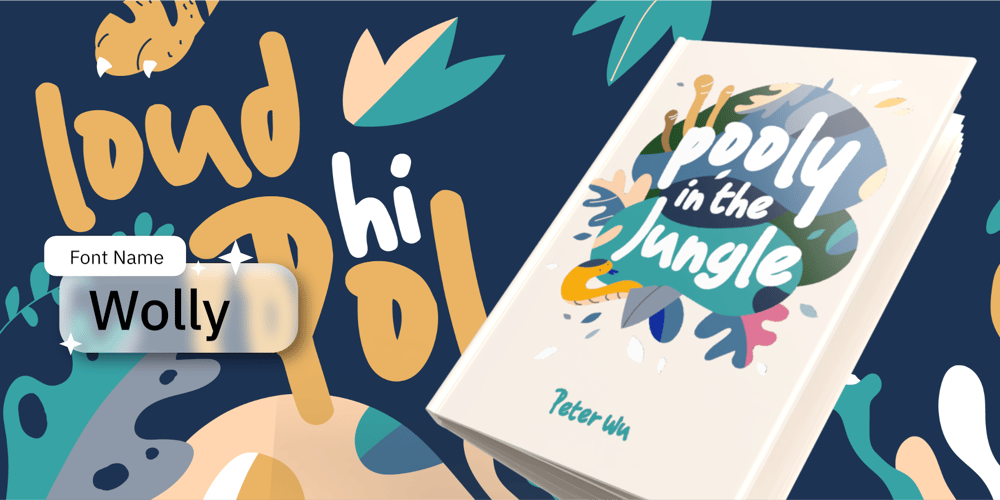
Wolly
Wolly font
Wolly Font Family was designed by Wahyu Eka Prasetya, Afiat Sukmaraga and published by Hati. Wolly contains 1 styles and family package options. Its design radiates a warmth that feels like a handwritten note from a friend—intimate, personal, and full of character. The curves are gentle, the lines fluid, reflecting a sense of ease and approachability. This is a font that doesn’t take itself too seriously, yet maintains a clarity that ensures every word is understood with clarity and ease.